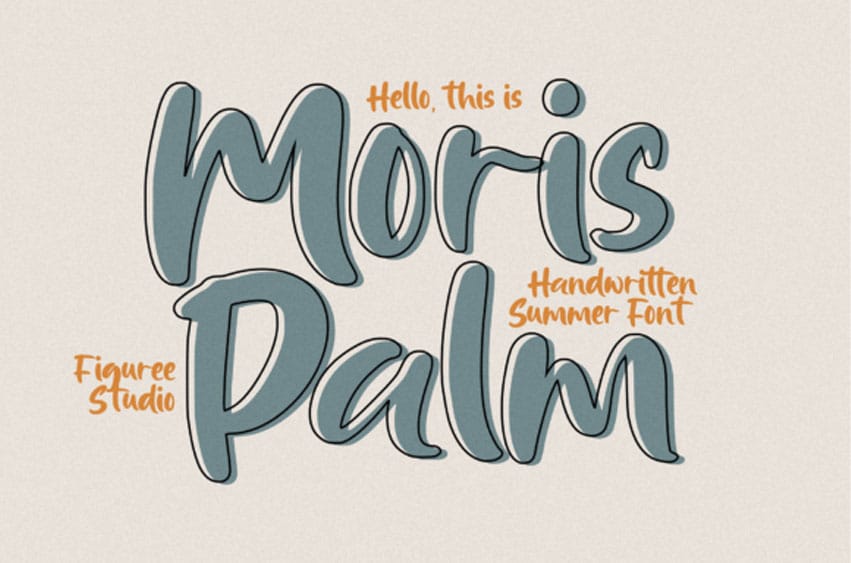
Moris Palm Font the Handwritten Summer Font that infuses your designs with the warm, carefree spirit of summer.
Perfect for projects that need a relaxed and inviting touch, Moris Palm combines a playful handwritten style with a breezy, sun-soaked vibe to create a font that is both charming and refreshing.